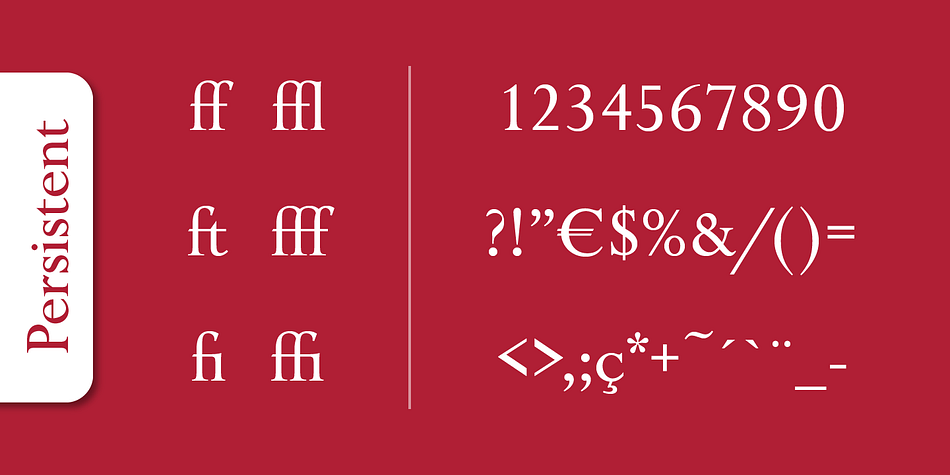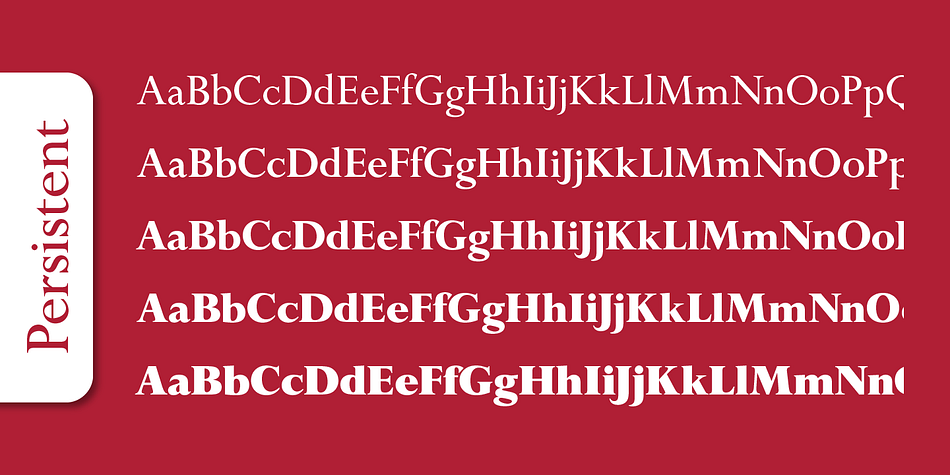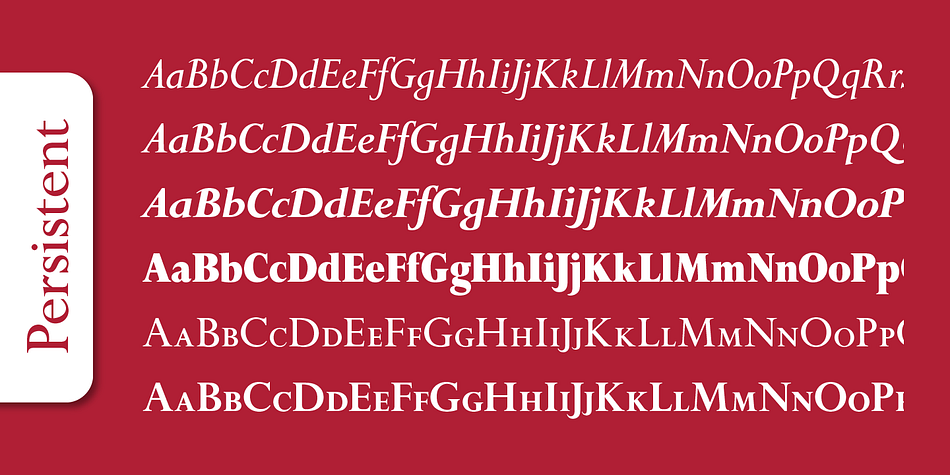
Persistent Pro
Persistent Pro is a serif font family. This typeface has eleven styles and was published by SoftMaker.
Persistent Pro is based upon designs of old engravings. The formal impression which this font lends to any text is due in part to its small, diagonal serifs and its medieval numbers.